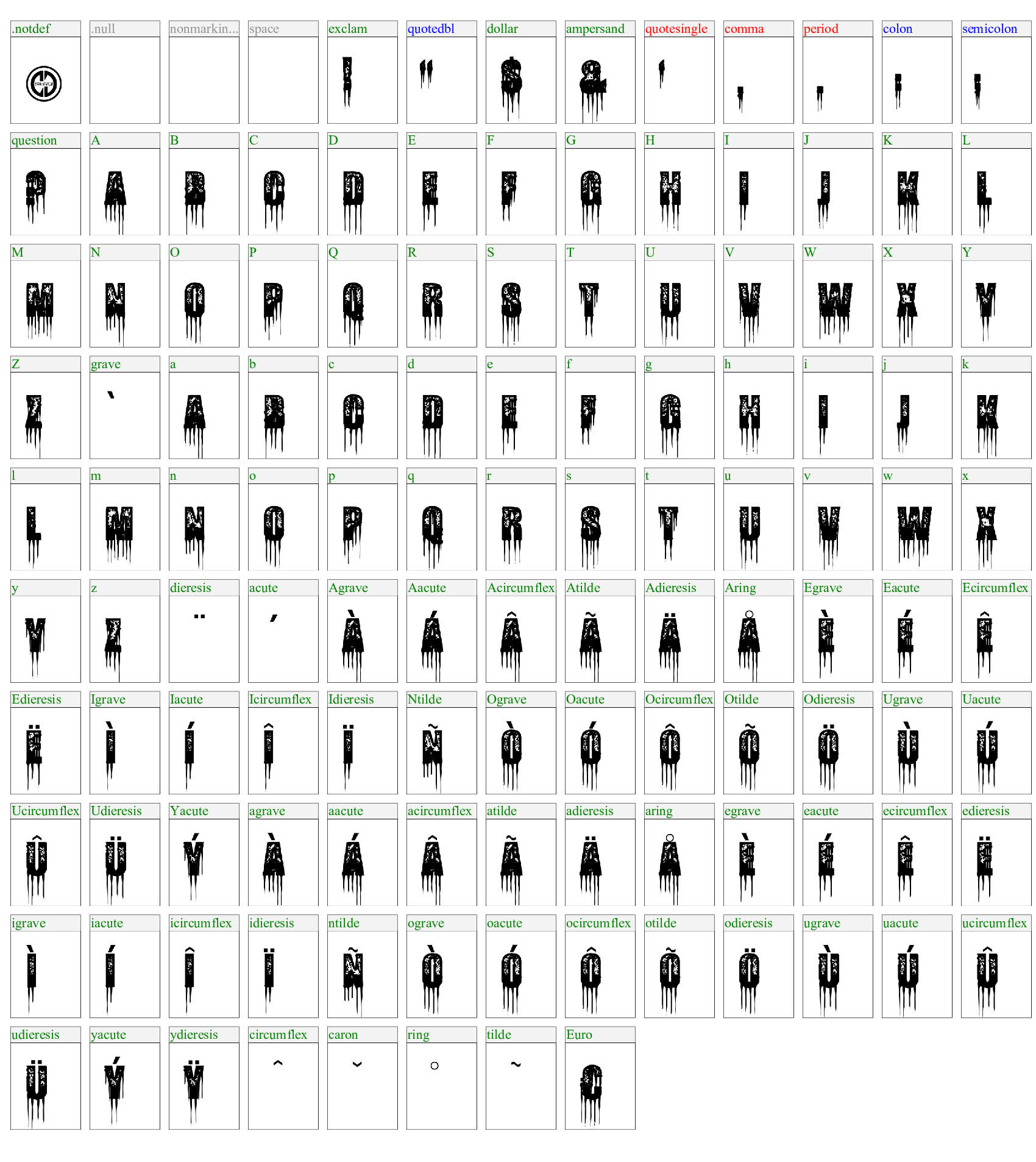
Lowercase: Same as uppercase
Numbers: Yes
Symbols and Punctuation: Yes, limited! view image below to see available characters
Accents: Yes
Theme: Horror and eroded